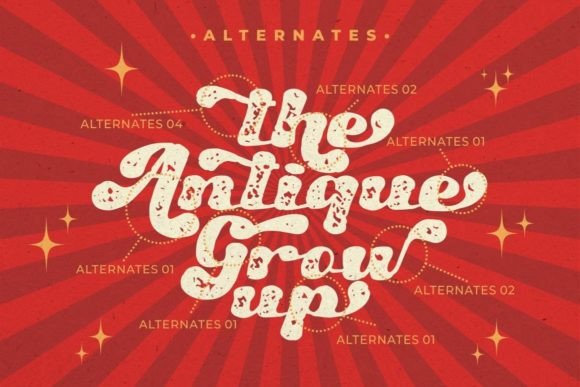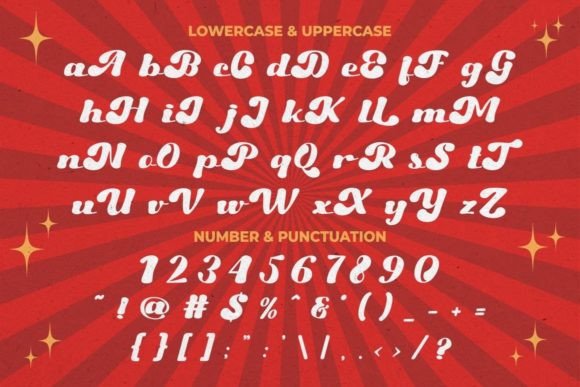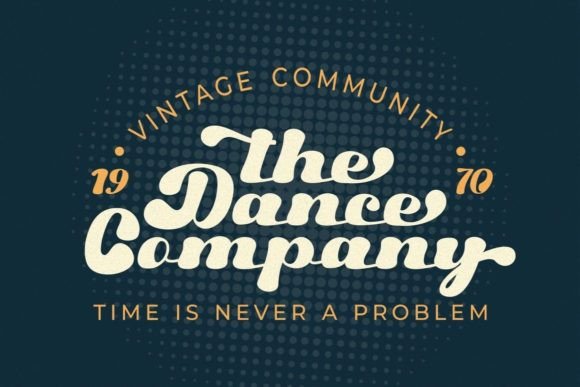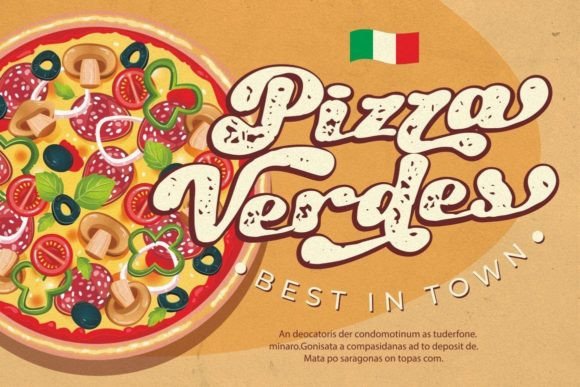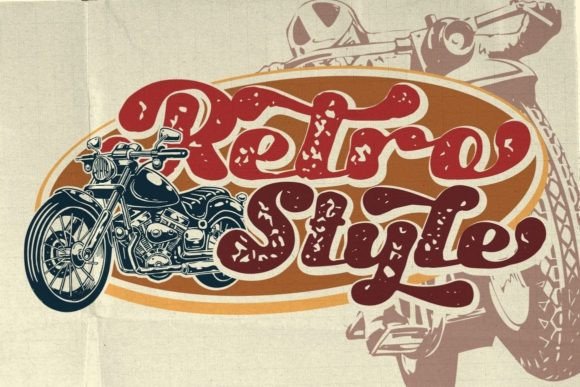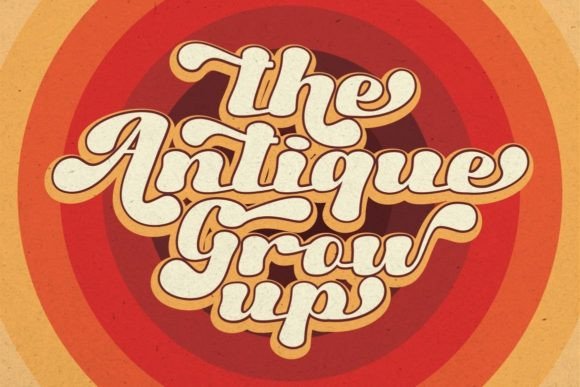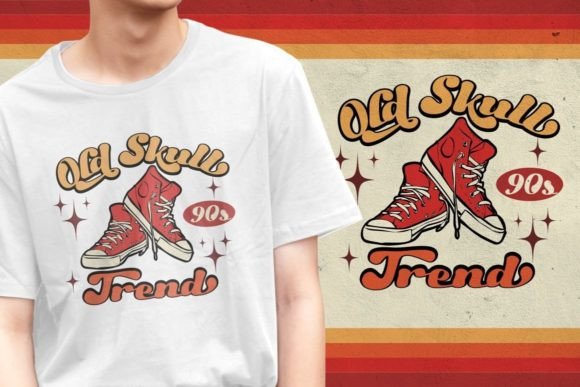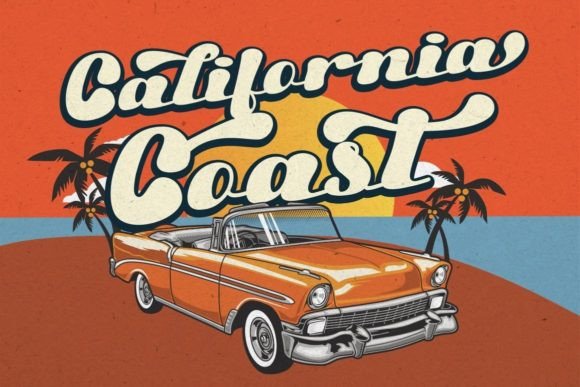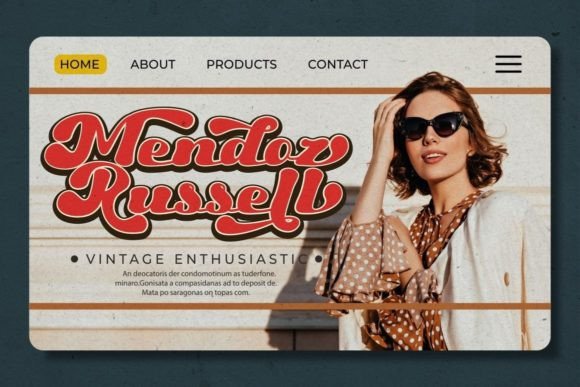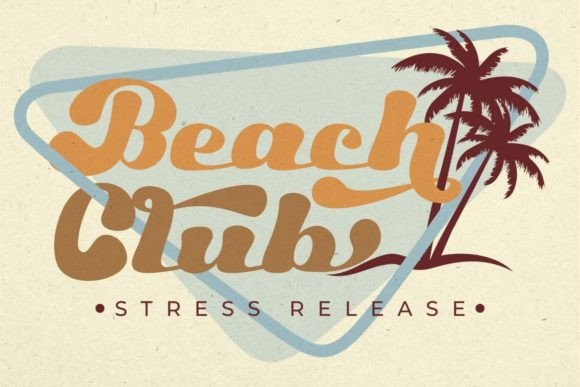
Billy Sham Font
About Billy Sham Font
Introducing “Billy Sham,” a captivating retro font inspired by the typography and lettering of the 70s and 80s, infused with a bold and contemporary typography style. This font is designed to bring a nostalgic yet modern vibe to various design projects, making it versatile for applications such as Logotype, headings, covers, posters, logos, quotes, product packaging, headers, merchandise, social media posts, greeting cards, and more.
The retro aesthetic of Billy Sham captures the essence of a bygone era, evoking a sense of nostalgia and classic charm. Its bold typography style adds a modern twist, making it a suitable choice for both vintage-inspired and contemporary designs.
In logos and logotypes, Billy Sham shines with its distinctive retro flair. The bold letterforms make a strong statement, creating a memorable and visually impactful representation for brands and businesses.
For headings and covers, Billy Sham adds character and personality. The retro-inspired typography brings a unique charm to headlines, ensuring that they stand out and grab the audience’s attention.
Posters benefit from Billy Sham’s bold and expressive design. Whether promoting events, products, or services, the font’s impactful style enhances the visual appeal and reinforces the theme of the design.
Product packaging takes on a retro-cool vibe with Billy Sham. The font’s boldness contributes to a strong and appealing presence on packaging, making it suitable for a variety of products.
Social media posts and quotes gain a vintage touch with Billy Sham. The font’s ability to evoke a sense of nostalgia adds depth and character to your social media content, making it more engaging and shareable.
The PUA encoding of Billy Sham is a valuable feature, allowing easy access to a variety of glyphs and swashes. This enhances the font’s versatility, providing designers with the freedom to experiment and customize their designs effortlessly.
In summary, Billy Sham is a retro font that seamlessly blends nostalgia with a bold contemporary style. Whether applied to logos, packaging, social media, or other creative projects, this font adds a distinctive and memorable touch. Unlock the full creative potential with ease using the PUA encoded features of Billy Sham.